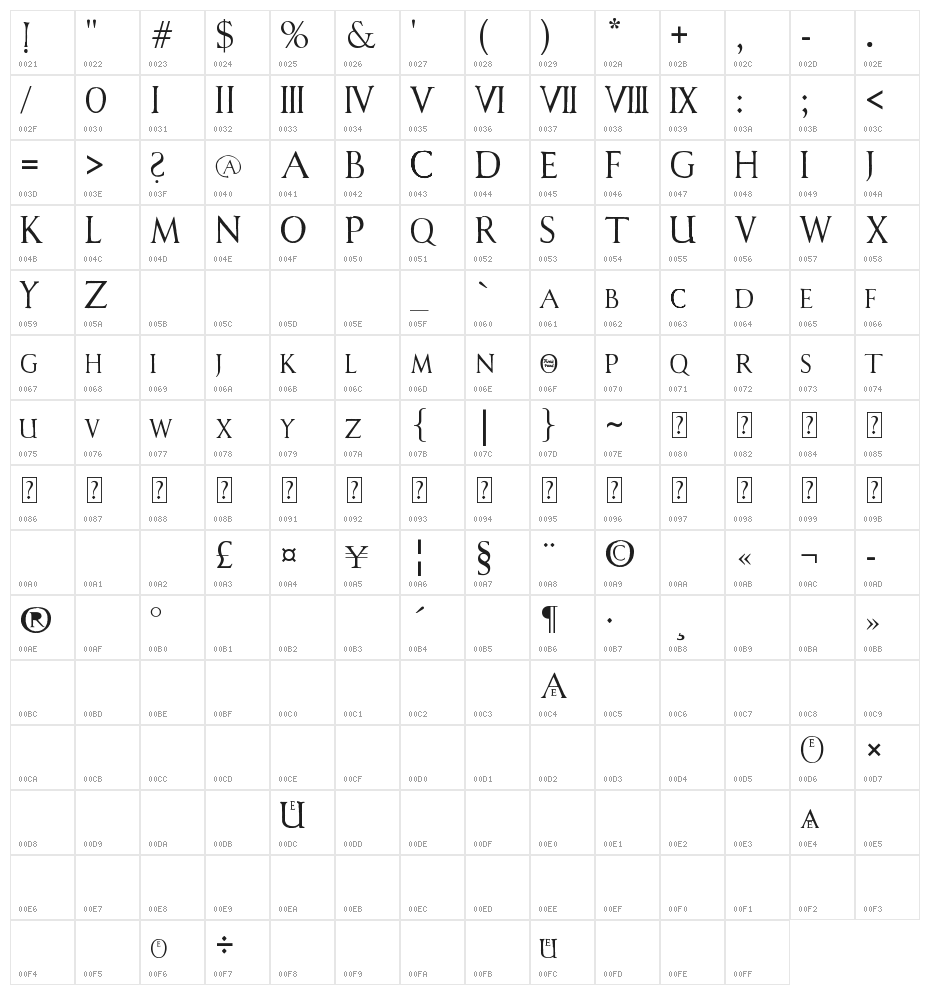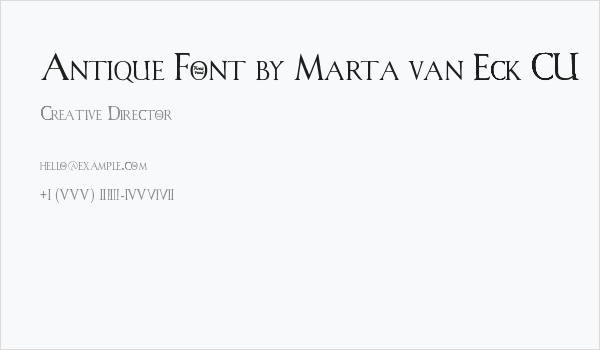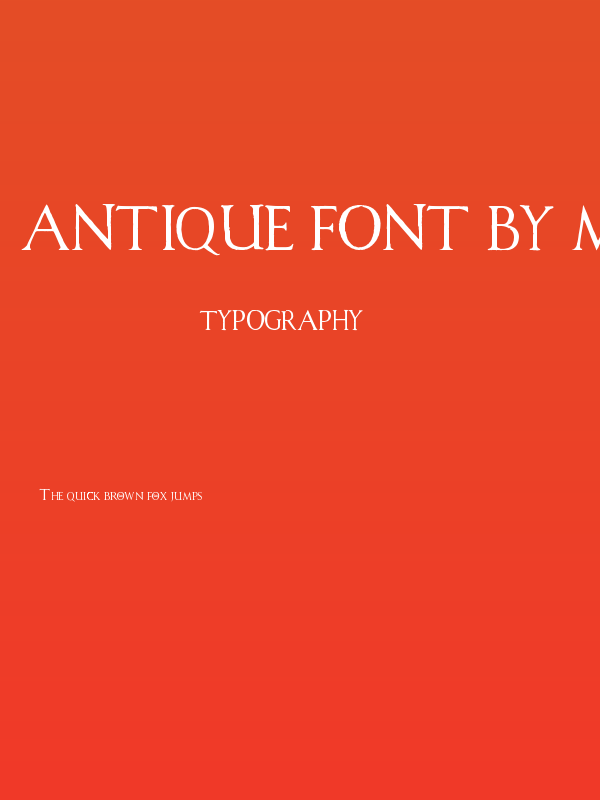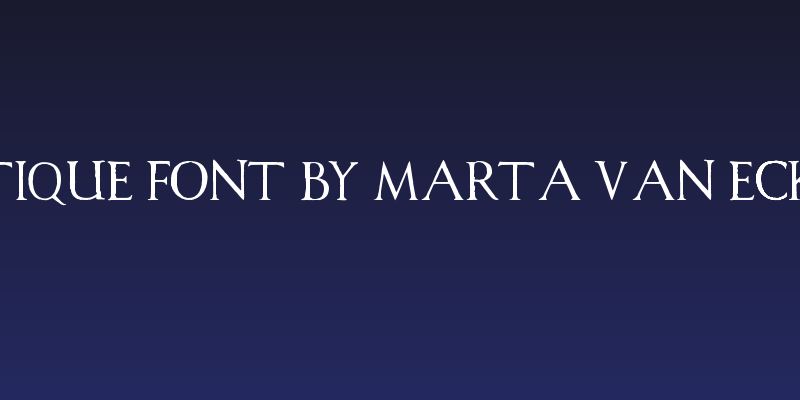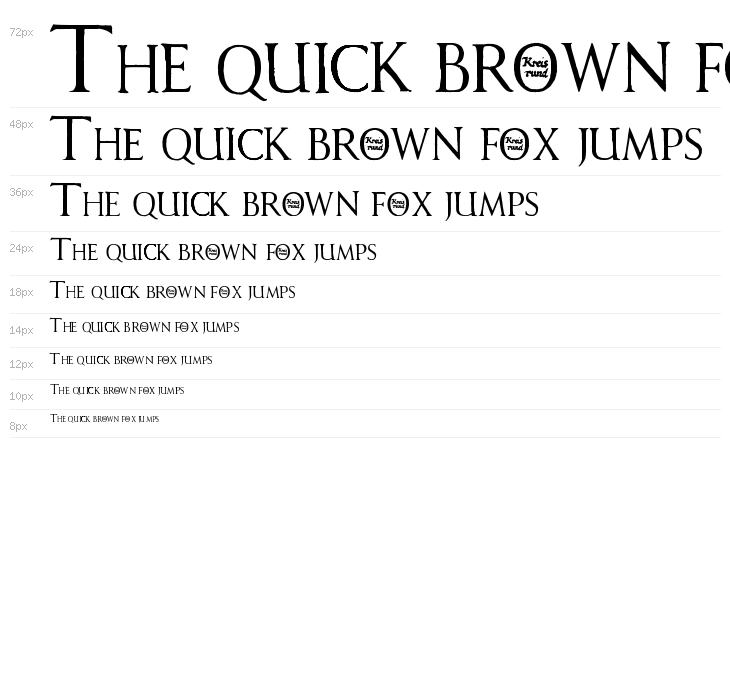
Antique Font by Marta van Eck CU Font
Antique Font by Marta van Eck CU Description
This font exudes a classic and historical charm, reminiscent of ancient scripts and inscriptions. The characters are elegantly crafted with a distinct serif style, featuring sharp, pointed serifs that add a touch of sophistication. The uppercase letters are bold and commanding, while the lowercase letters maintain a consistent style that complements the overall design. The numerals are styled to match the letterforms, providing a cohesive look. Special characters are included, maintaining the font's unique aesthetic. This font is ideal for projects that require a touch of antiquity and elegance.
Overall StyleVintage
Use CaseHeadlines, Logos, Decorative text
Proposed ProjectsIdeal for historical documents, book covers, branding for luxury products, or any project needing a vintage touch.